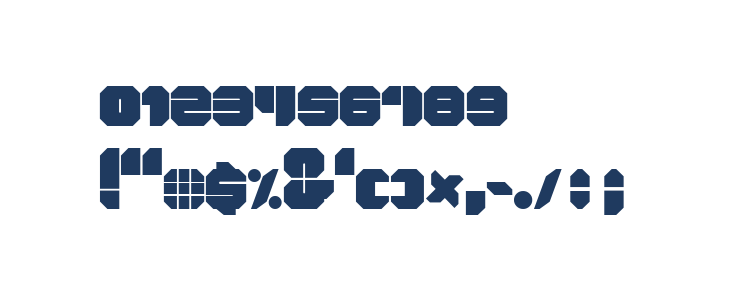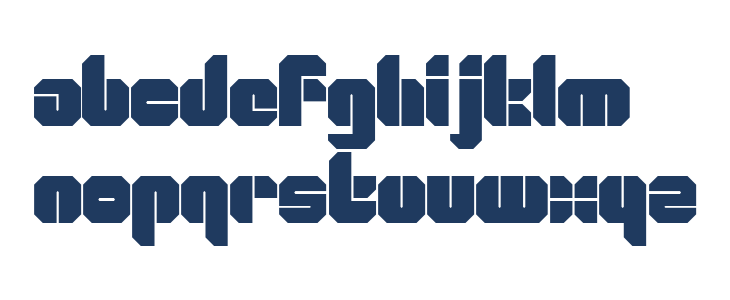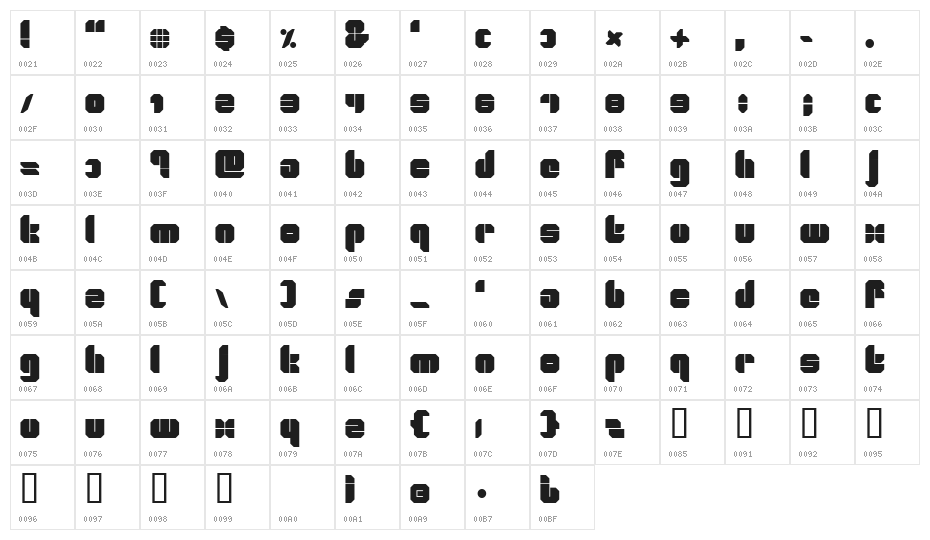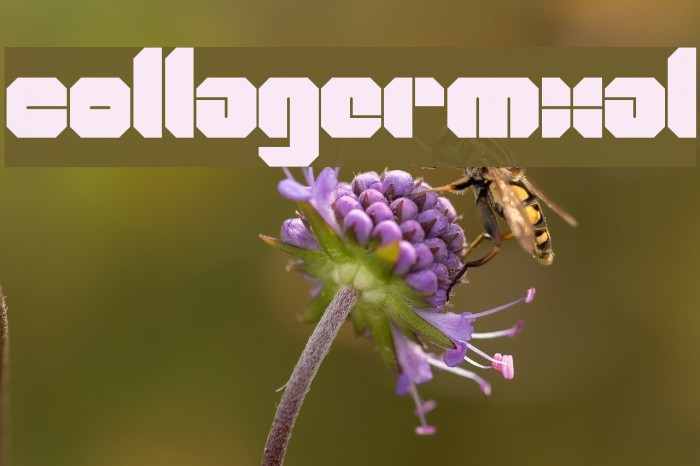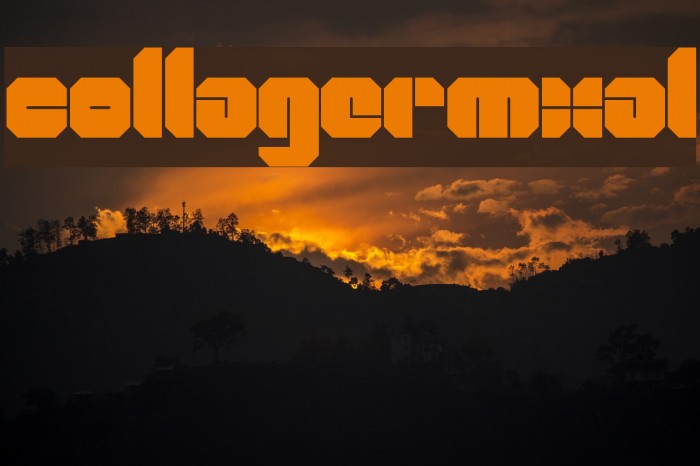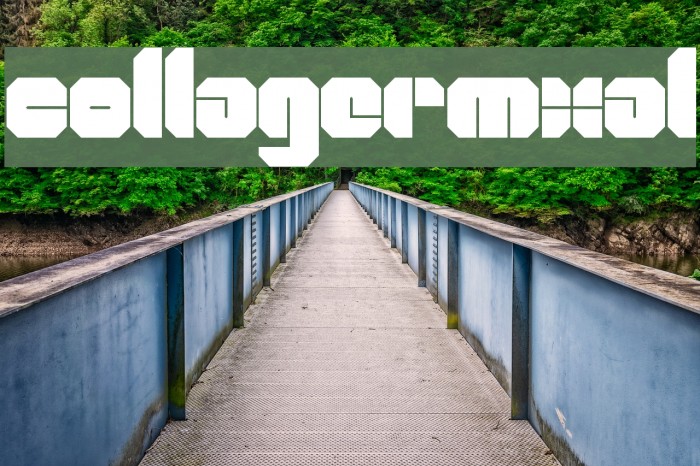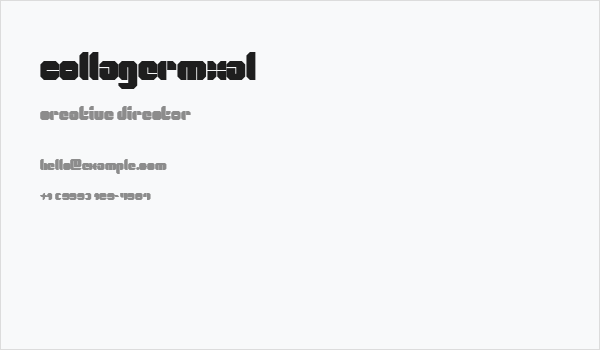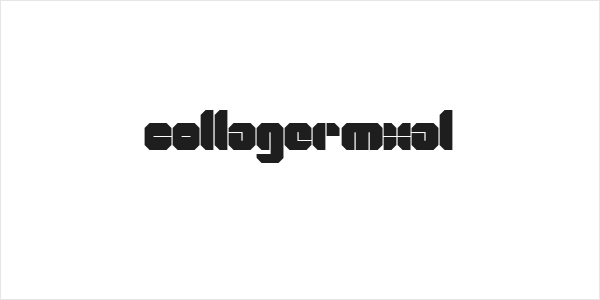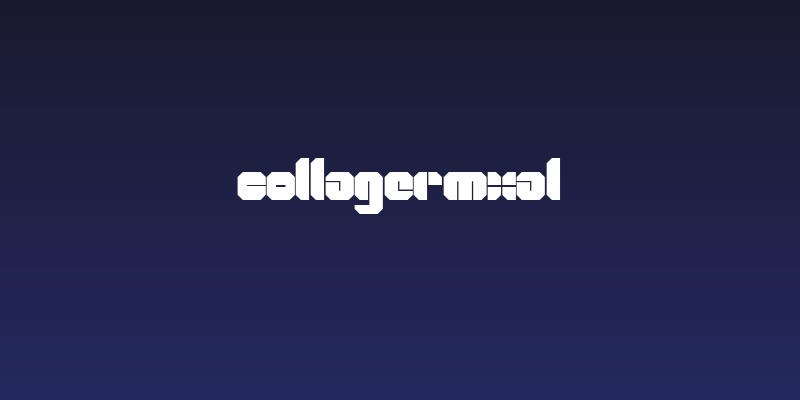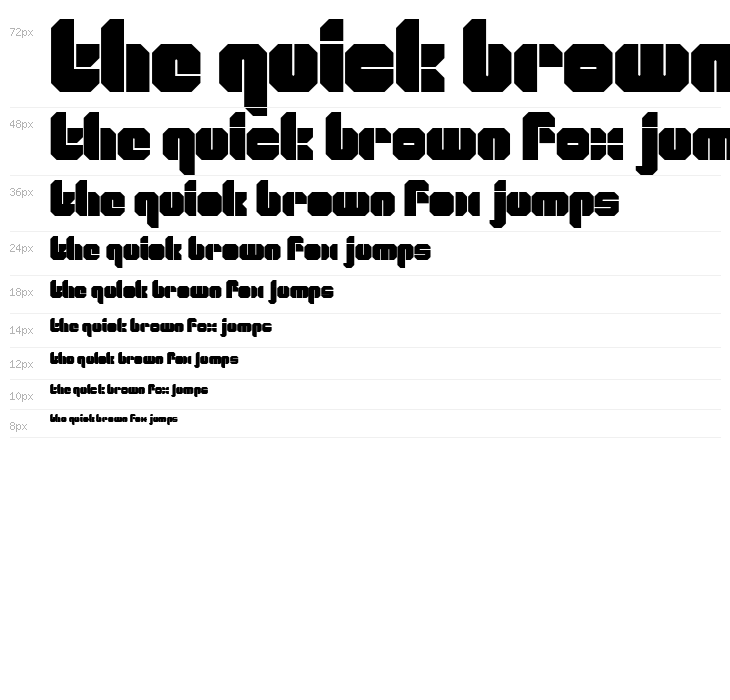
CollageRmxAl Font
CollageRmxAl Description
This font features a bold, geometric design with a distinctly modern and futuristic aesthetic. The characters are constructed with sharp angles and straight lines, creating a blocky and robust appearance. The uppercase and lowercase letters maintain a consistent style, with minimal curves and a focus on angular shapes. The numerals and special characters follow the same design principles, ensuring uniformity across all glyphs. The font's unique style makes it stand out, with a strong visual impact that is both eye-catching and memorable.
| Proposed Projects | Ideal for use in technology branding, video game titles, sci-fi movie posters, and digital art projects. |